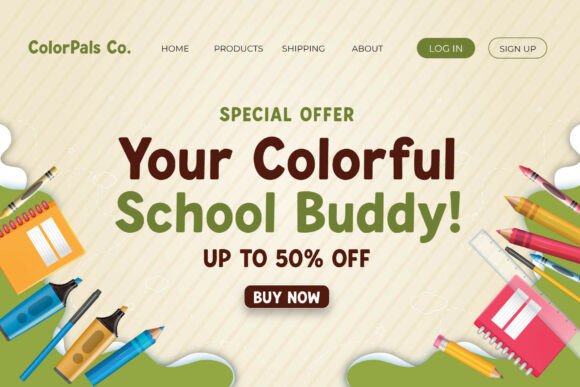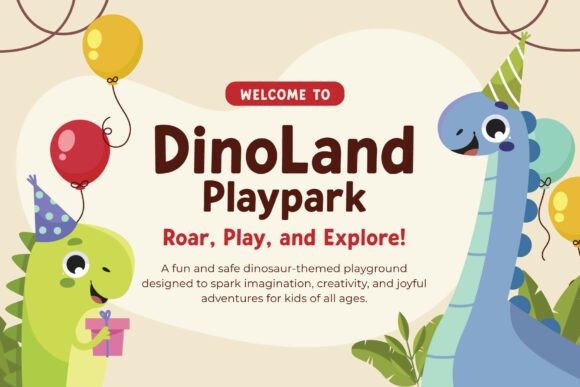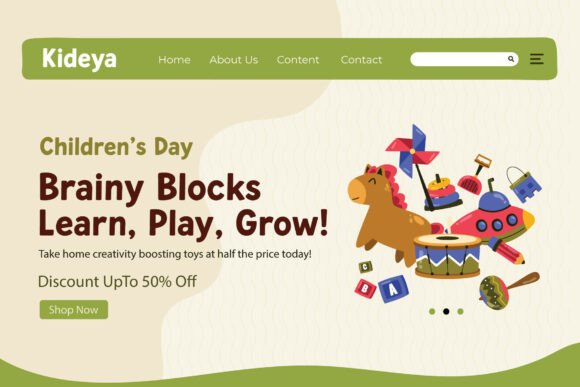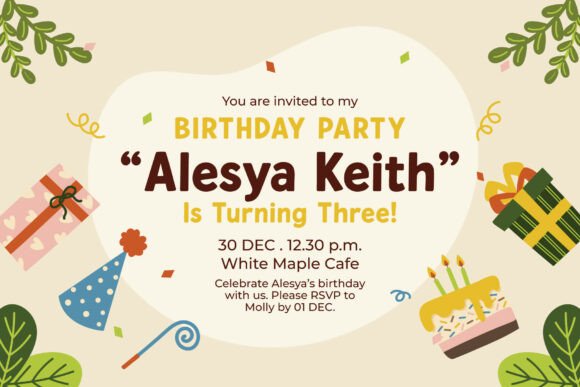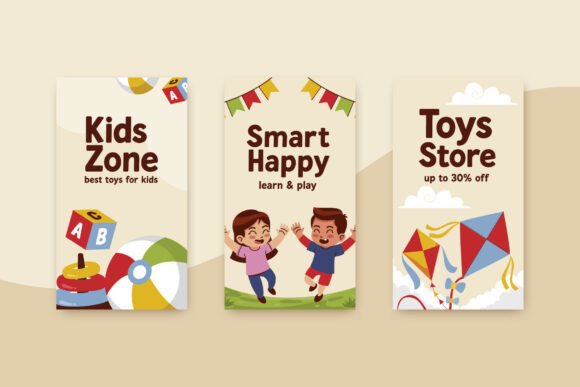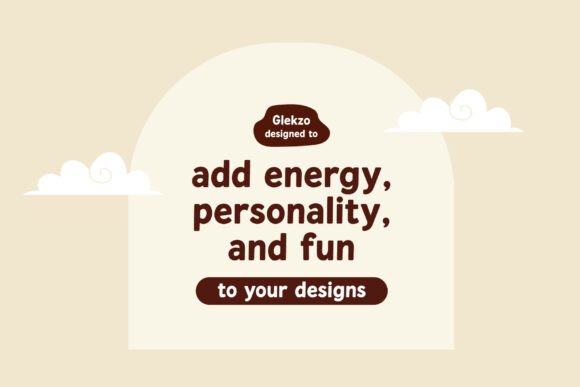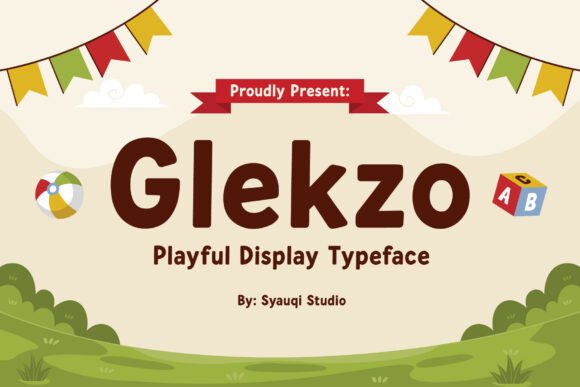
Glekzo Font: The Playful Display Typeface to Elevate Your Designs
In the world of typography, a font can make or break a design. If you’re a designer or crafter looking for a typeface that exudes energy, personality, and fun, look no further than Glekzo. This playful sans-serif display font is designed to add a touch of whimsy and charm to your designs, making it perfect for a wide range of creative projects.
The Characteristics of Glekzo
Glekzo boasts bold curves, unique shapes, and a friendly rhythm that creates a cheerful and eye-catching look. Its clean structure is infused with charming, whimsical details that make it highly readable while maintaining a unique style. This modern yet expressive typeface is ideal for designers seeking to add a playful personality to their designs.
Glekzo is a versatile font that works perfectly for a multitude of design projects. Some of the ideal uses for Glekzo include:
- Children’s branding: Glekzo’s playful and cheerful design makes it perfect for kids’ products, packaging, and marketing materials.
- Product packaging: Add a touch of whimsy to your product packaging with Glekzo’s unique and eye-catching design.
- Creative posters: Glekzo’s bold curves and friendly rhythm make it perfect for creating eye-catching posters that grab attention.
- Social media graphics: Stand out on social media with Glekzo’s playful and modern design.
- Editorial headlines: Add a touch of personality to your editorial headlines with Glekzo’s unique and expressive typeface.
- Apps and stickers: Glekzo’s clean structure and charming details make it perfect for use in apps and stickers.
What Sets Glekzo Apart
So, what sets Glekzo apart from other display fonts? Here are a few key features that make Glekzo a standout:
- Unique shape: Glekzo’s bold curves and unique shapes create a distinctive look that’s sure to grab attention.
- Playful personality: Glekzo’s friendly rhythm and whimsical details give it a playful personality that’s perfect for designs that need a touch of fun.
- High readability: Despite its unique style, Glekzo is highly readable, making it perfect for use in a wide range of design projects.
- Modern and expressive: Glekzo’s clean structure and charming details make it a modern and expressive typeface that’s perfect for designers seeking a unique look.
Bring Joy and Charm to Your Designs
If you’re looking for a font that will bring joy and charm to your designs, look no further than Glekzo. This playful display typeface is designed to add energy, personality, and fun to your designs, making it perfect for a wide range of creative projects. With Glekzo, you can:
- Create eye-catching designs that grab attention.
- Add a touch of whimsy and charm to your designs.
- Convey a sense of fun and playfulness.
- Elevate your designs with a modern and expressive typeface.
| Font Name | Glekzo Font |
| Author | Syauqi Studio |
In conclusion, Glekzo is a playful display typeface that’s perfect for designers and crafters seeking to add energy, personality, and fun to their designs. With its bold curves, unique shapes, and friendly rhythm, Glekzo creates a cheerful and eye-catching look that’s sure to grab attention. Whether you’re working on children’s branding, product packaging, creative posters, or social media graphics, Glekzo is the perfect choice. So why wait? Bring joy, charm, and confidence to your next creative project with Glekzo – a fun and modern display font for every designer.